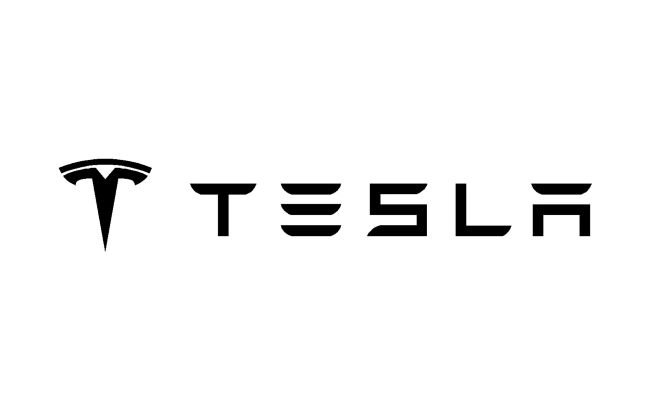
Tesla font is the typographic equivalent of the vehicles it names — minimal, aerodynamic, and operating on a different set of assumptions from everyone else in its category. The custom logo lettering is a sleek, geometric sans-serif with elongated proportions and a faintly futuristic tension in its forms, drawing comparisons to typefaces in the Emblem and high-tech display family. It communicates speed and intelligence without a single decorative element, which is precisely right for a company that considers the removal of the exhaust pipe a design improvement. The freely available Tesla Font package provides the closest accessible approximation of this proprietary system.